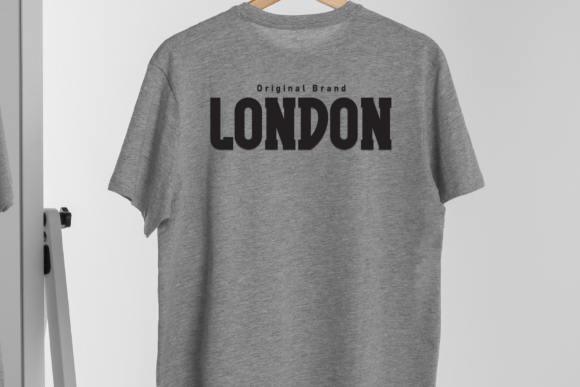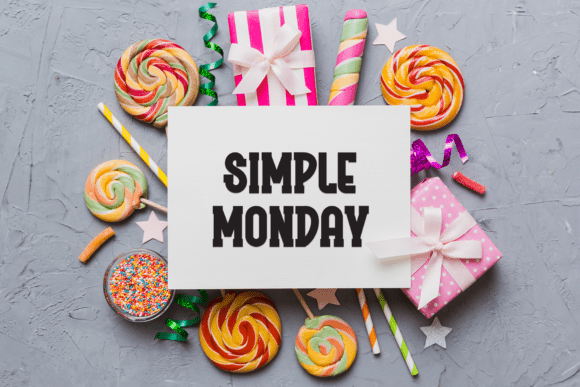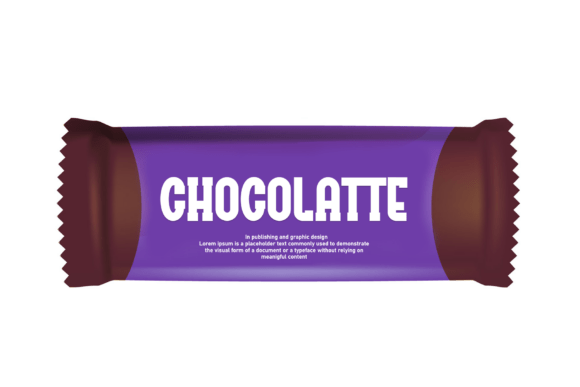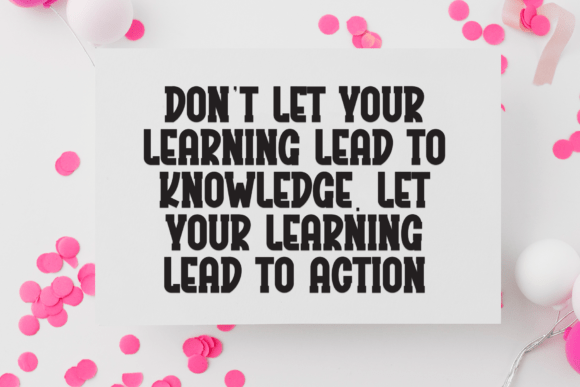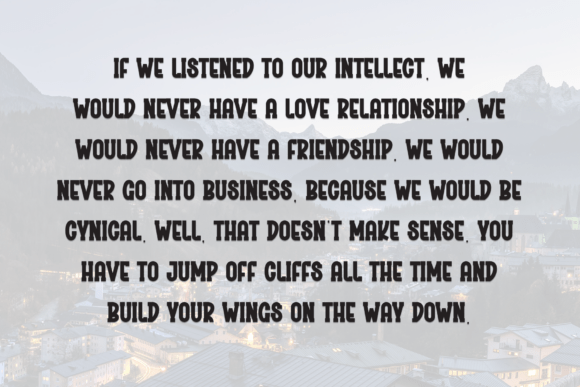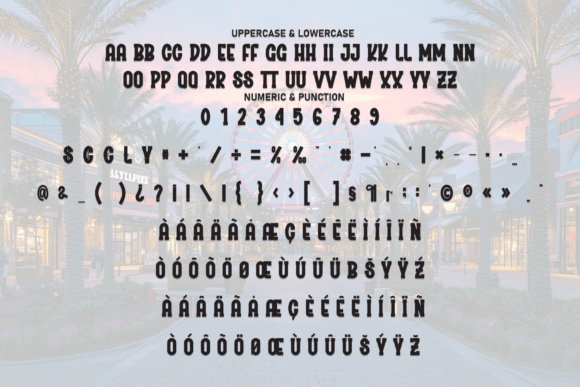
Introduction to Lasvegas Font
Do you remember the moment when a font choice elevated your design project from ordinary to extraordinary? For many designers, that magical moment happens when they stumble upon the perfect script to convey their message. Today, we’re excited to introduce you to the Lasvegas Font, a handcrafted display font that will transport your artistic creations into an enchanting world.
Imagine a font that’s not just a typography choice, but a design resource that can transform your creative project into a masterpiece. With its warm and inviting essence, the Lasvegas Font is perfect for designers seeking a high-quality font that adds a touch of whimsy and charm to their work. Whether you’re creating a wedding invitation, a greeting card, or any other design project, this font is sure to leave a lasting impression.
Key Features of Lasvegas Font
- Unique, eye-catching design that can add a touch of glamour and sophistication to any creative project.
Honest Review: Lasvegas Font
As a designer, I’m always on the lookout for high-quality fonts to elevate my creative projects. The Lasvegas Font caught my eye, and I was eager to put it to the test.
Here’s what I like about the Lasvegas Font: ✨
- High-quality design: The font is well-crafted, with clean lines and a unique aesthetic.
However, I did encounter a few limitations: ⚠️
- Limited character set: The font’s character set is relatively small, which may be a concern for designers working on complex projects.
- No bold or italic options: The font is only available in regular weight, which may limit its versatility.
Overall, the Lasvegas Font is a solid addition to any designer’s toolkit. While it has its limitations, its high-quality design and free download make it a valuable resource for creative projects. I’d recommend giving it a try and seeing how it fits into your workflow.
Tips for Getting the Most Out of Lasvegas Font
To get the most out of the Lasvegas Font, be sure to use it in conjunction with a transparent background to create a clean and modern design. Additionally, experiment with different font sizes and styles to add depth and interest to your designs.
The Lasvegas Font is a versatile design resource that can be used in a variety of creative projects, including social media graphics, flyers, presentations, and more. It’s a great choice for anyone looking to add a touch of sophistication and elegance to their designs.